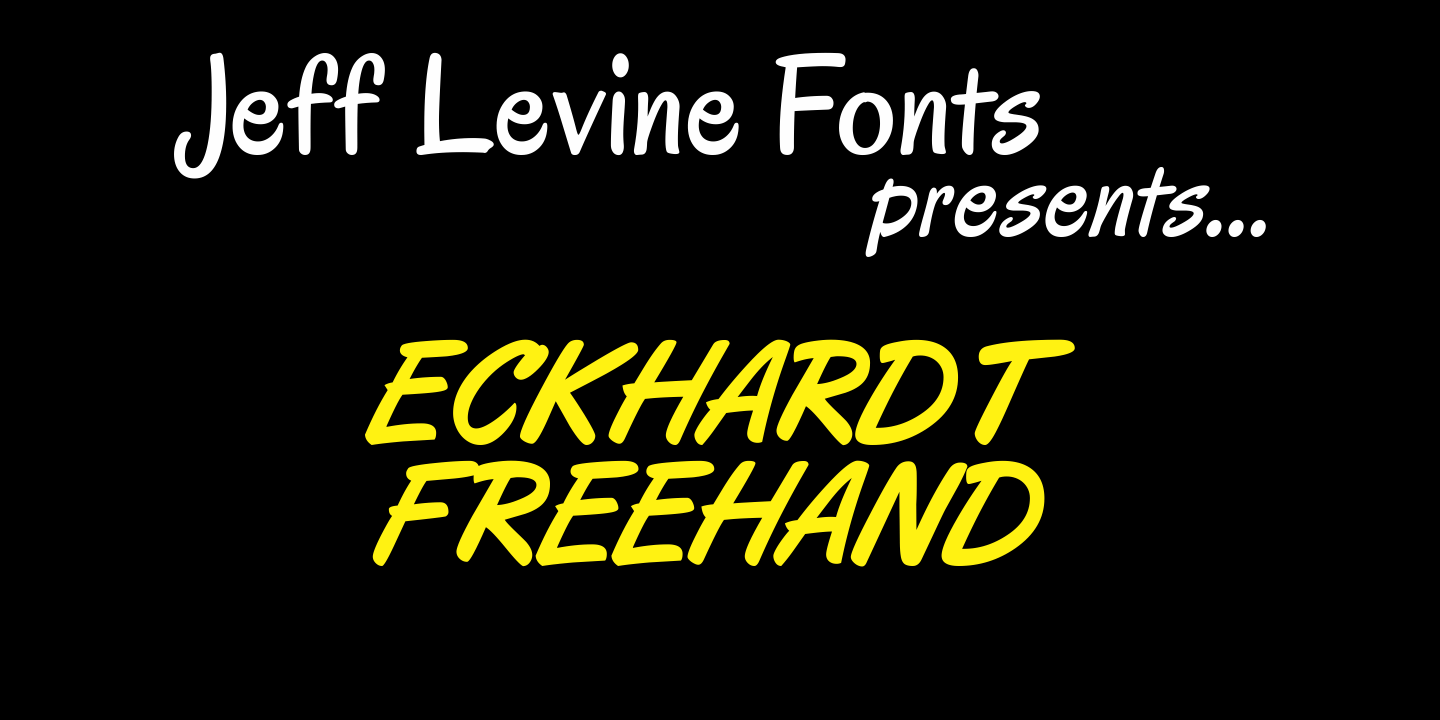
Eckhardt Freehand
Eckhardt Freehand JNL is the fourth font based on the lettering of sign painters and show card writers. Jeff Levine has chosen to name this "mini series" of fonts in honor of his friend Albert Eckhardt, Jr., a talented sign man who ran Allied Signs [in Miami, Florida] from 1959 until his passing in 2005.